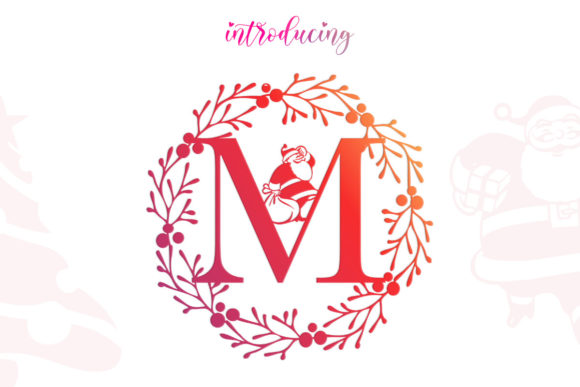
**Step into a World of Christmas Charm with Our Enchanting Christmas Santa Monogram Font**
Experience the magic of the holiday season with our captivating Christmas Santa Monogram font, a delightful addition to our decorative font family. Designed to ignite the spirit of Christmas, this font is a treasure trove of festive charm and elegance, ready to transform your creative projects into captivating works of art.
**Unleash Your Creativity with Endless Design Possibilities**
With Christmas Santa Monogram, the possibilities are infinite. Adorn your Christmas cards with heartfelt messages, enveloped in the warmth of this font's delicate strokes. Let your imagination soar as you craft beautiful stationary art, each piece imbued with a touch of holiday magic. Elevate your social media posts to new heights, captivating audiences with eye-catching visuals adorned with this enchanting font. The sky's the limit as you explore the boundless creative horizons that await.
**Embrace the Festive Spirit in Every Stroke**
Immerse yourself in the enchanting world of Christmas with our Christmas Santa Monogram font. Its meticulously crafted characters dance across the screen, evoking the joy and wonder of the holiday season. Each letter is a masterpiece, adorned with intricate details that capture the essence of Christmas cheer. Let this font transport you to a winter wonderland, where snowflakes twirl and laughter fills the air, as you create stunning designs that radiate festive charm.
**Ignite the Joy of the Season with Every Creation**
Spread the Christmas spirit far and wide with our Christmas Santa Monogram font. Let your designs ignite the joy of the season, warming the hearts of all who encounter them. From heartfelt Christmas greetings to whimsical holiday decorations, this font will infuse your creations with an unforgettable touch of festive magic. Experience the power of typography as it weaves its enchanting spell, transforming the ordinary into the extraordinary this Christmas.